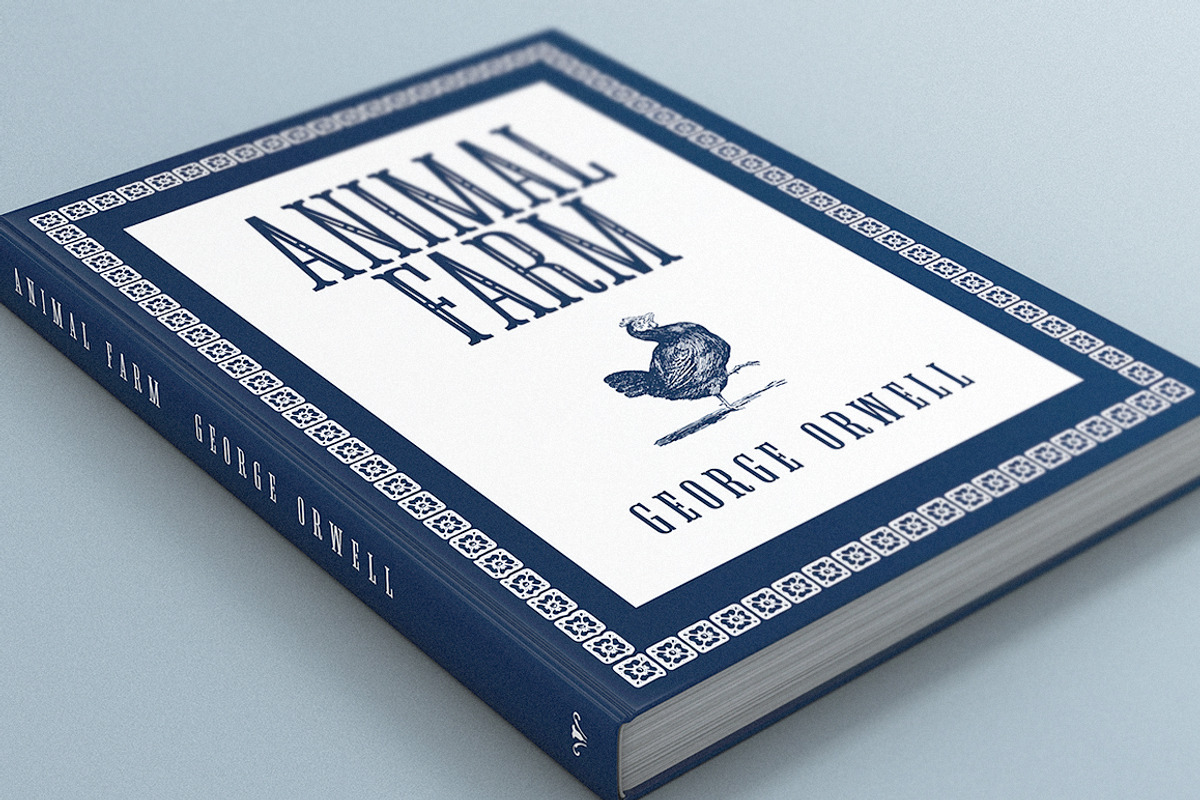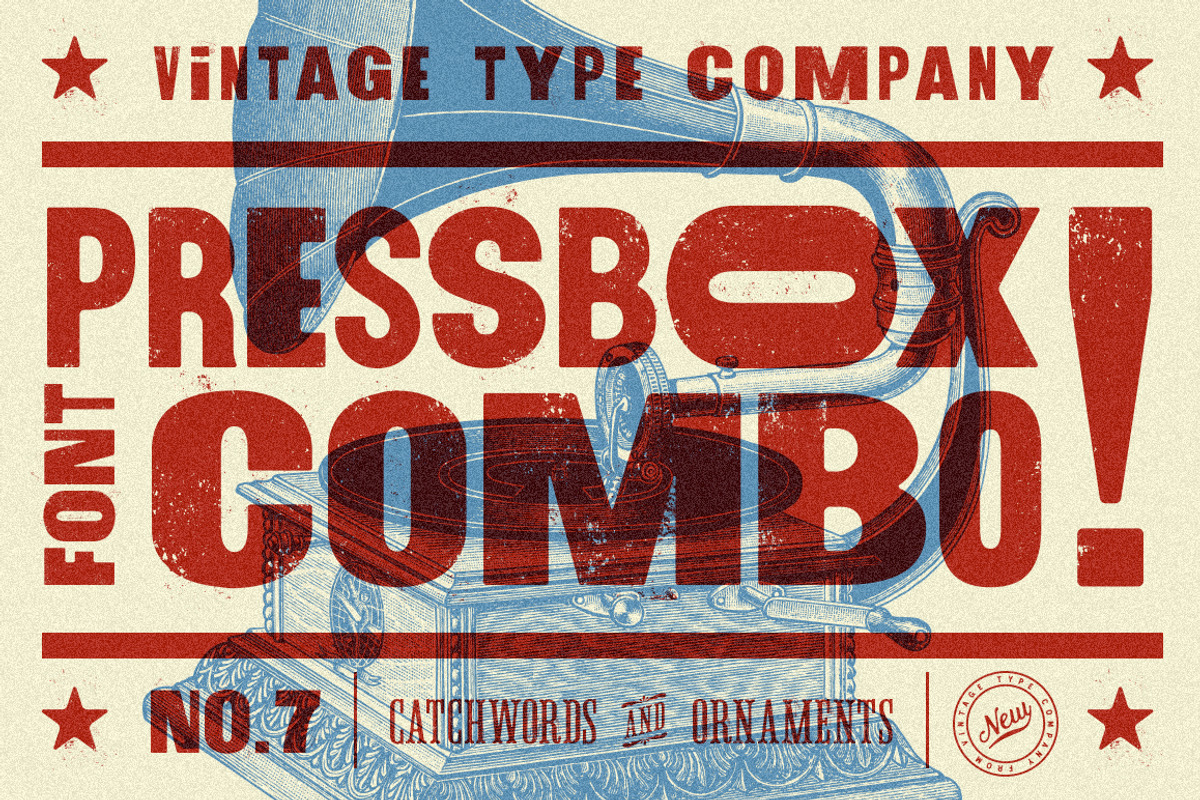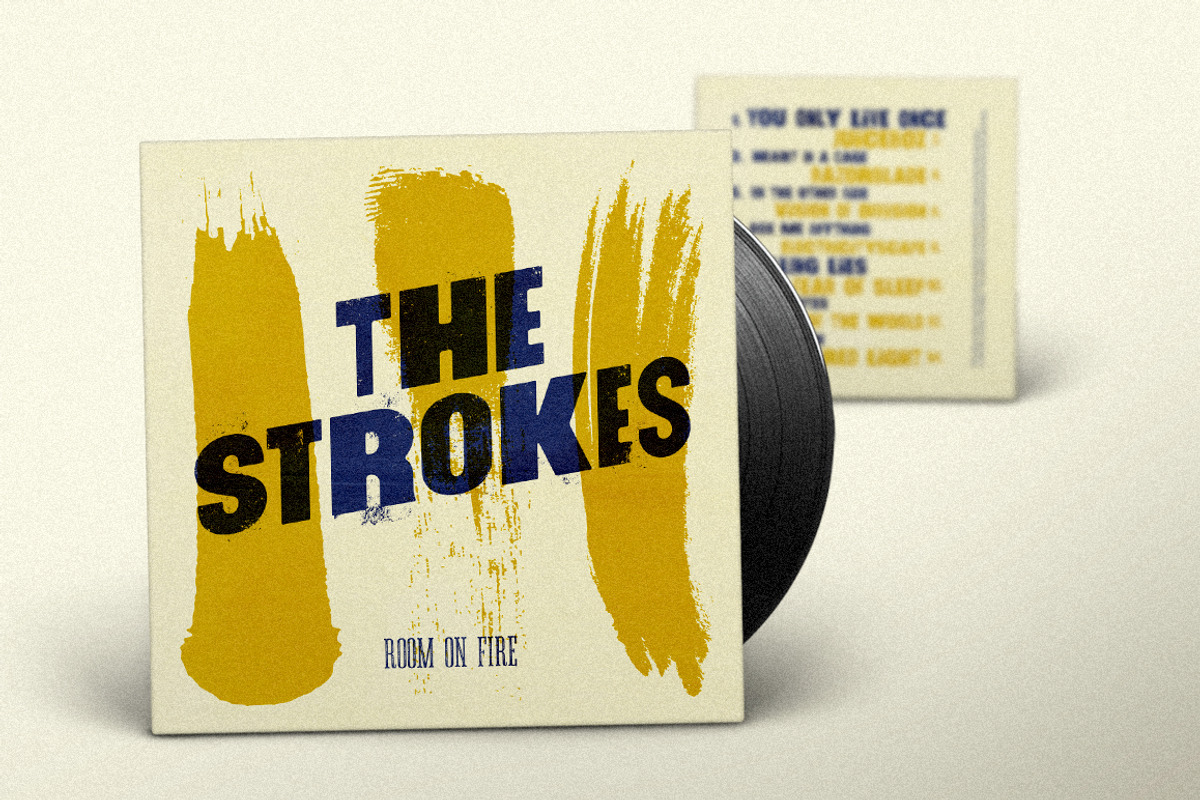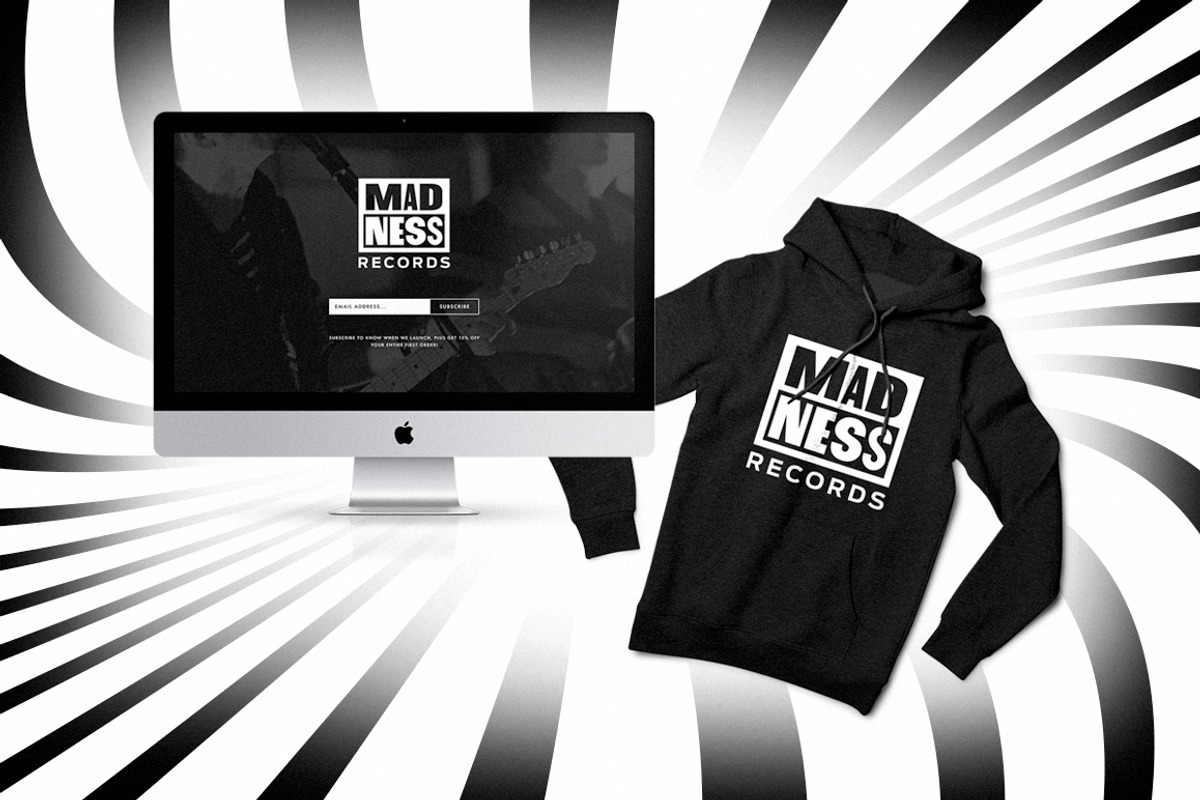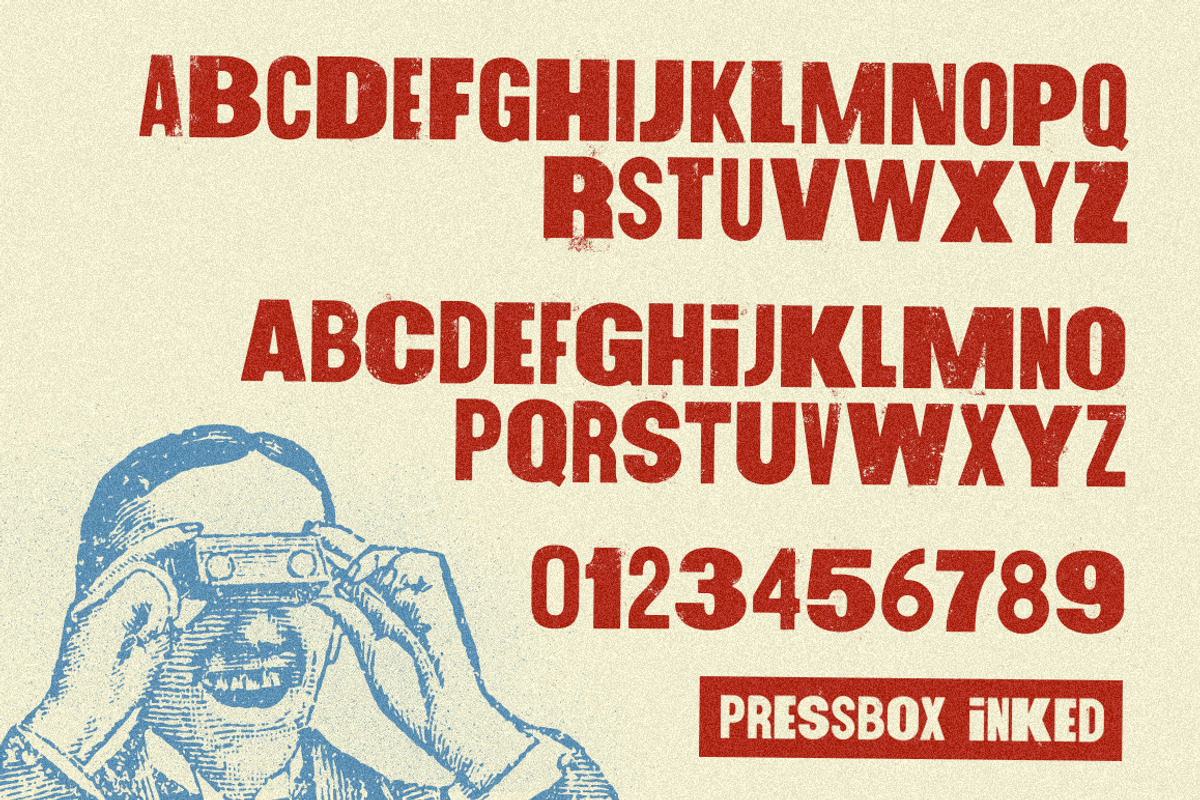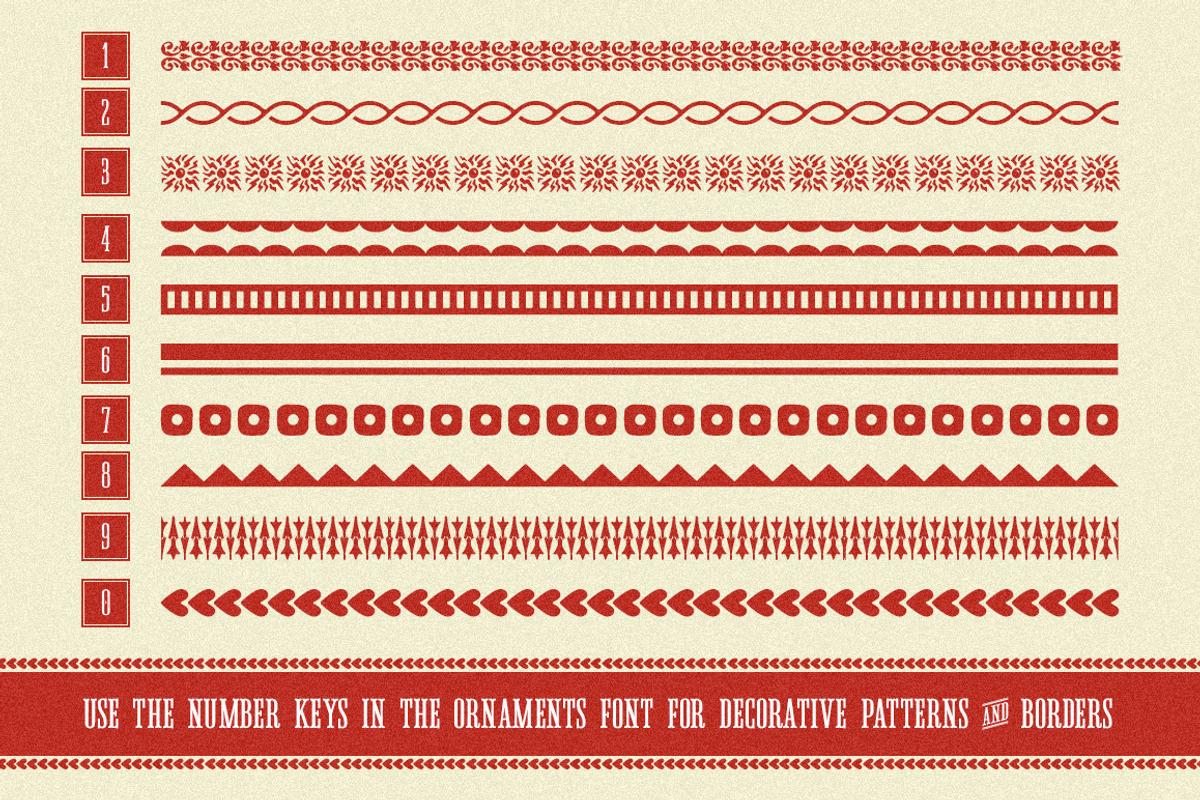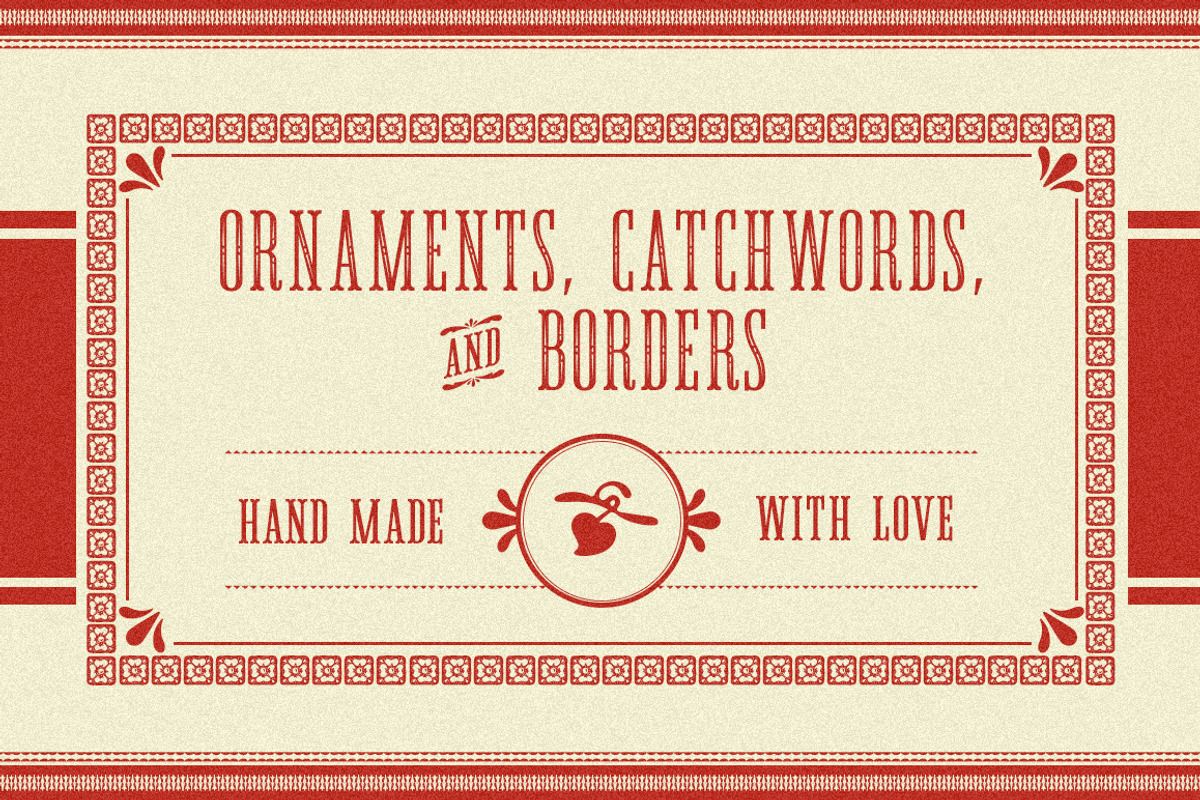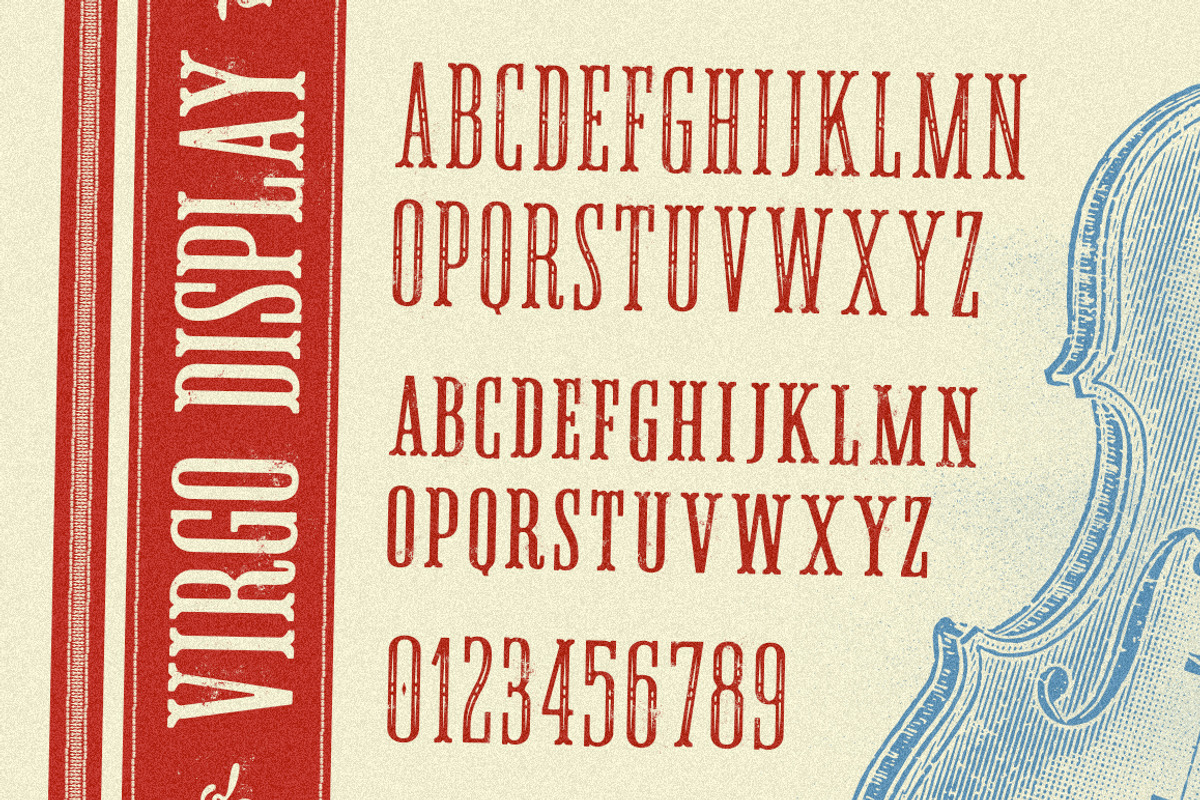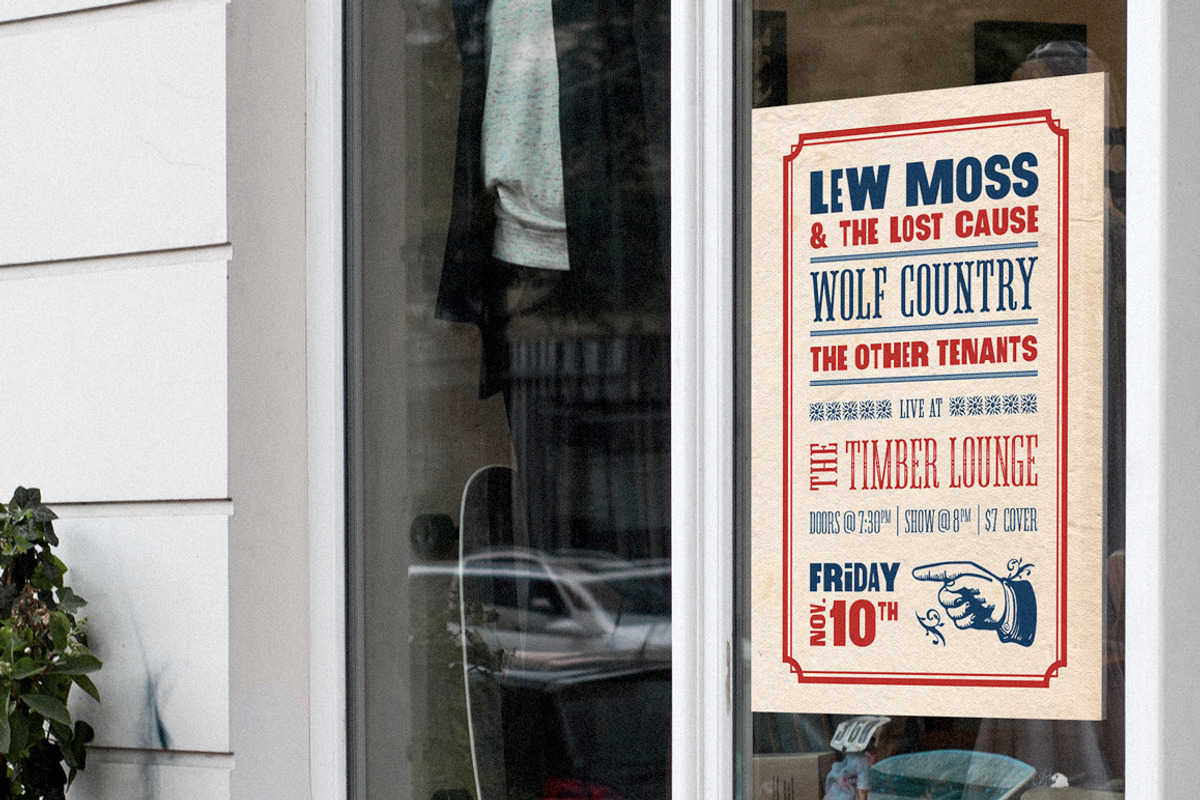
PressBox Combo Font is an Americana, metal-type, inspired font family consisting of 2 main fonts and a bonus ornamental font, each of which comes with an alternative, inked style.
With PressBox Display, you can switch the width of your glyphs simply by switching between upper & lower case. The secondary font, Virgo Display, is a condensed, stylized serif with spurs, and comes in all-caps with a small-cap lowercase.
The bonus font, Virgo Ornaments comes with a load of catchwords, ornaments, and decorative elements that can be used for ornamental borders.